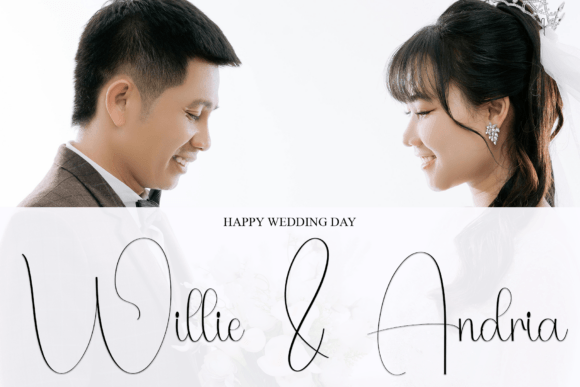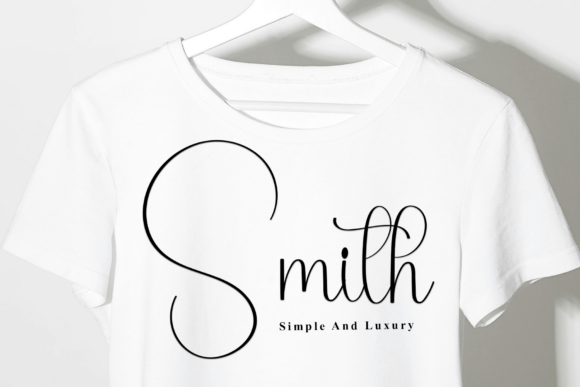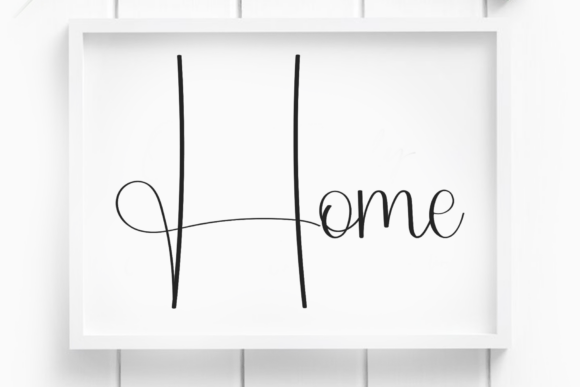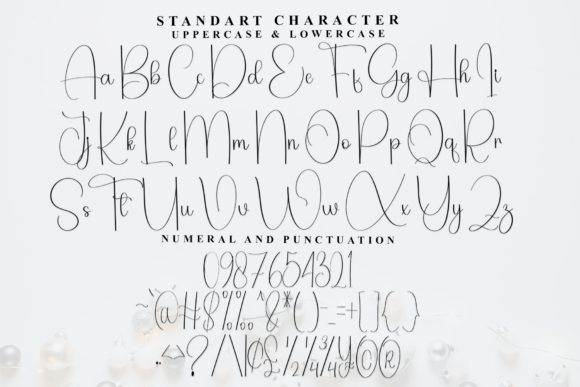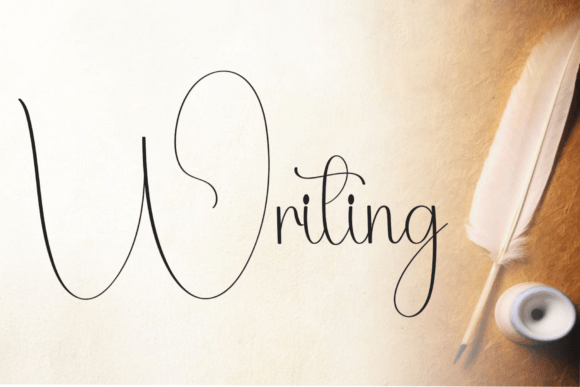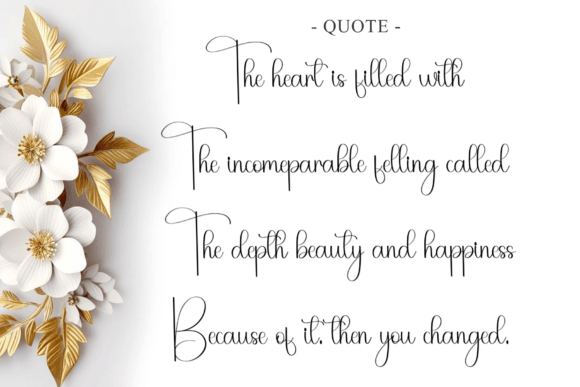
Introducing Angel Wonderful Font: The Perfect Blend of Casual and Creative
Are you tired of using the same old fonts for your personal projects, invitations, and social media graphics? Look no further than the Angel Wonderful Font, a charming and creative typeface that exudes warmth and friendliness. With its round, playful strokes, this font creates a relaxed and approachable feel that’s perfect for designers and crafters looking to add a personal touch to their work.
The Characteristics of Angel Wonderful Font
Angel Wonderful Font is a casual and creative font that’s designed to make your designs stand out. Its key characteristics include:
- Round and playful strokes: The font’s rounded edges and playful strokes create a fun and relaxed feel that’s perfect for personal projects and social media graphics.
- Hand-drawn aesthetic: The font’s charming, hand-drawn aesthetic adds a unique touch to any design, making it perfect for crafters and designers looking to add a personal touch to their work.
Perfect for Personal Projects and Designs
Angel Wonderful Font is perfect for a wide range of personal projects and designs, including:
- Invitations: Whether you’re planning a wedding, birthday party, or baby shower, this font is perfect for creating custom invitations that reflect your personal style.
- Social media graphics: Add a personal touch to your social media graphics, including Facebook posts, Instagram stories, and Twitter headers.
- Personal branding: Use Angel Wonderful Font to create a unique and recognizable brand identity that reflects your personality and style.
- Crafting projects: Whether you’re a crafter or DIY enthusiast, this font is perfect for adding a personal touch to your projects, including handmade cards, gift tags, and more.
Why Choose Angel Wonderful Font?
So why choose Angel Wonderful Font over other fonts? Here are just a few reasons:
- Unique and creative: This font offers a unique and creative aesthetic that’s sure to make your designs stand out.
- Versatile: Angel Wonderful Font is perfect for a wide range of projects and designs, from personal invitations to social media graphics.
- Warm and friendly: The font’s warm and friendly aesthetic is sure to add a personal touch to any design.
Tips for Using Angel Wonderful Font
Here are a few tips for getting the most out of Angel Wonderful Font:
- Experiment with different colors: Try pairing the font with different colors and textures to create a unique and eye-catching design.
- Use it with other fonts: Combine Angel Wonderful Font with other fonts to create a unique and interesting contrast.
- Play with font sizes: Experiment with different font sizes to create visual interest and hierarchy in your design.
Angel Wonderful Font is a charming and creative typeface that’s perfect for designers and crafters looking to add a personal touch to their work. With its round, playful strokes and hand-drawn aesthetic, this font is sure to make your designs stand out. Whether you’re working on a personal project, invitation, or social media graphic, Angel Wonderful Font is a great choice. So why not give it a try and see the difference it can make in your designs?